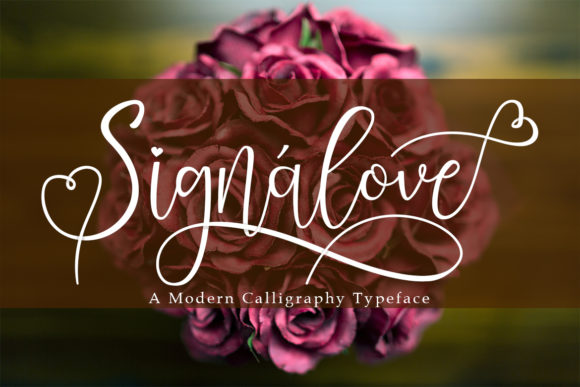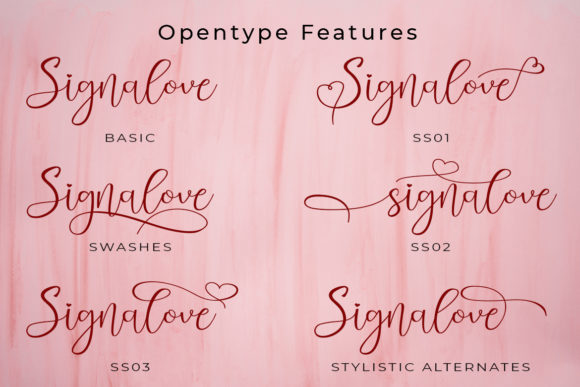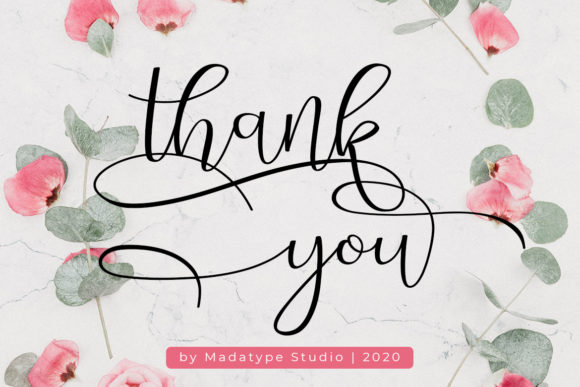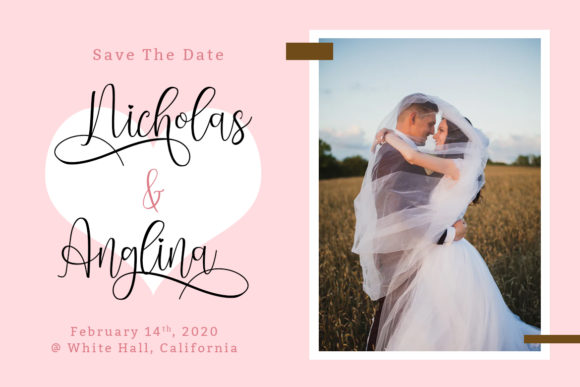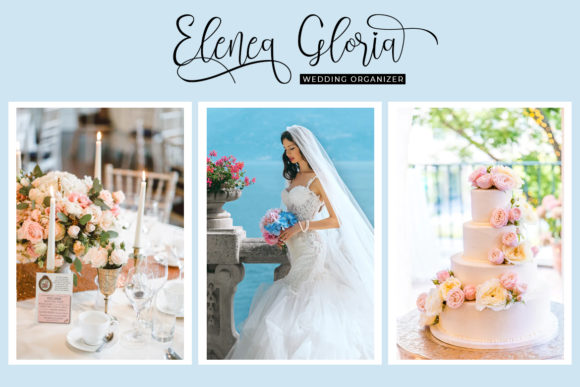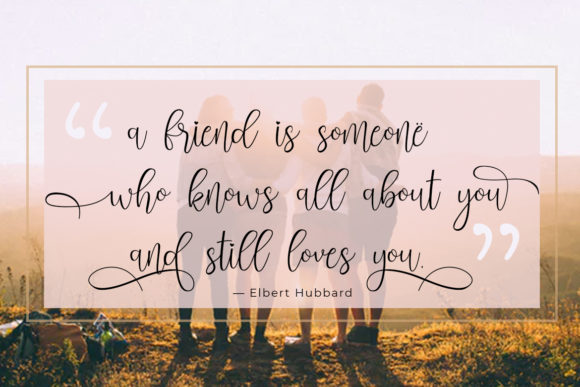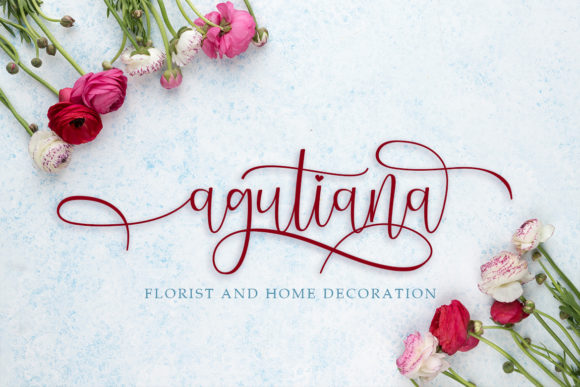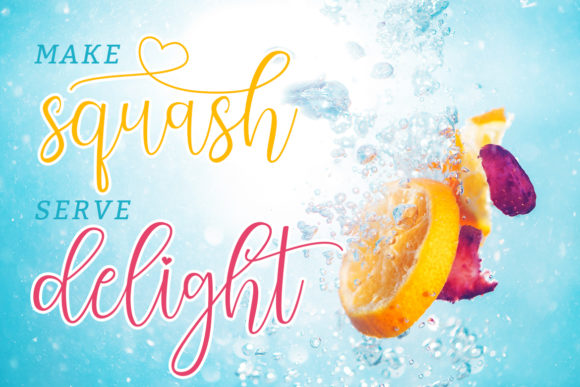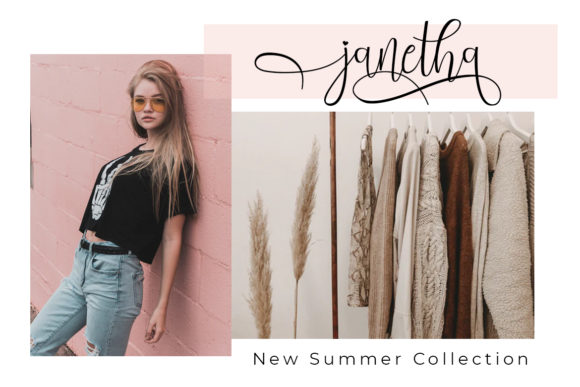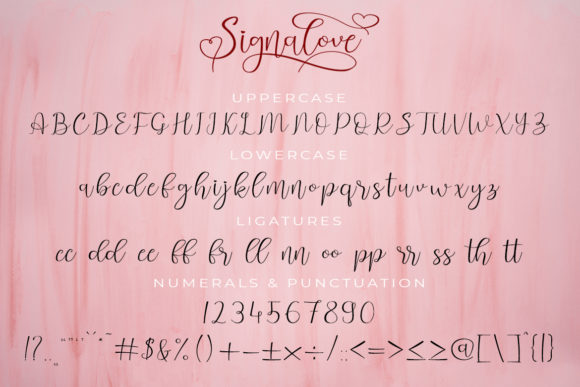
Signalove Font
About Signalove Font
Singnalove is a romantic modern calligraphy typeface. It has various of alternates that will make your designs into a stunning result. Make a special design or craft with Signalove and be happy as always.
This font is PUA encoded which means you can access all of the magical glyphs and swashes with ease! It also features a wealth of special features including alternate glyphs and ligatures.